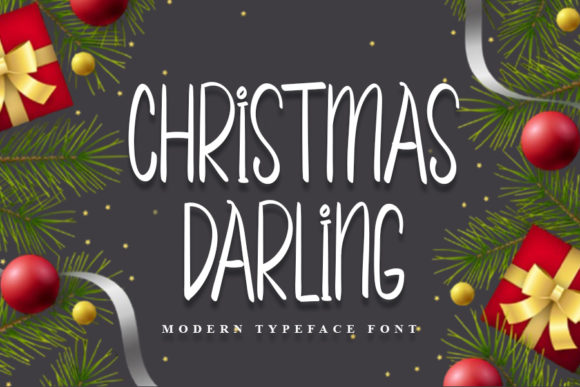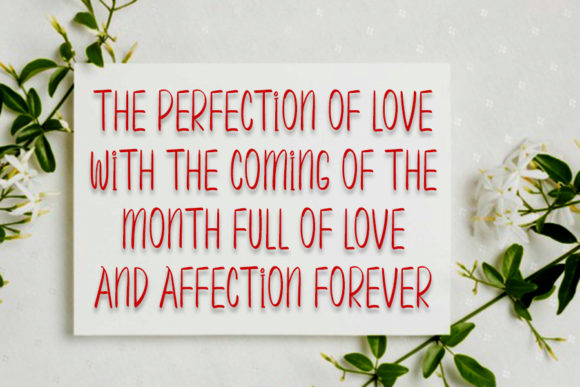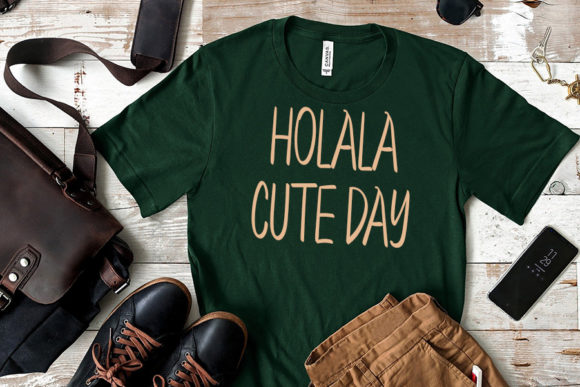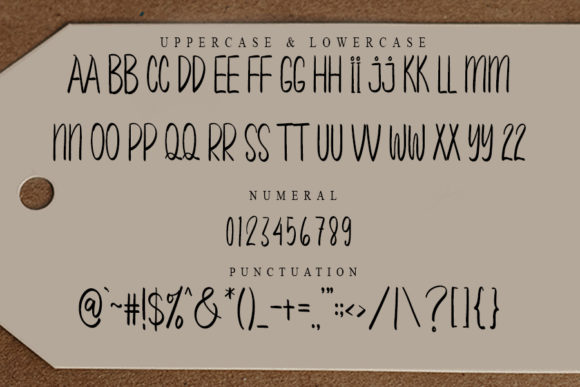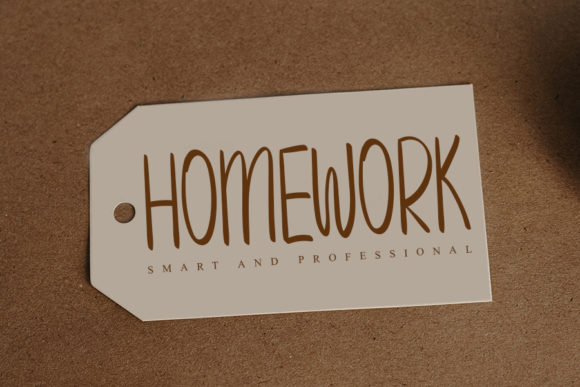
Christmas Darling Font
About Christmas Darling Font
Christmas Darling is an all-caps handwritten font with narrow and nonsymmetrical characters which makes this font joyful and authentic. It looks beautiful on a variety of designs requiring a personalized style, such as wedding invitations, thank you cards, weddings, greeting cards, logos, and so on.